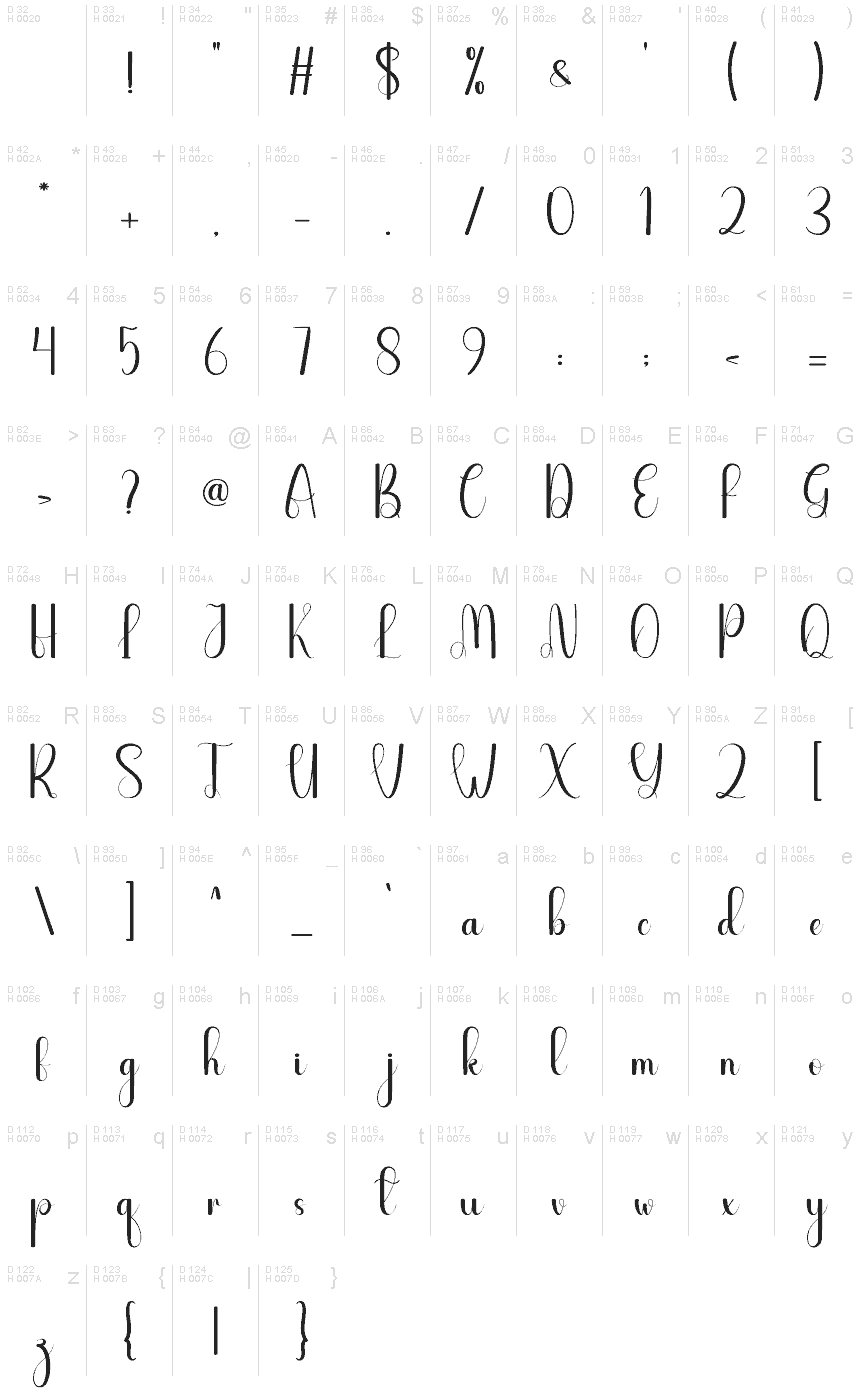
Bedset
Bedset font by Andi Moz is an elegant calligraphy font that offers classic flowing letters with artistic flair. Its condensed form and decorative look are highlighted in the twisty edges, curves, and thin linework of each character. The formal design of Bedset has both a retro and contemporary appeal that is visually expressive.